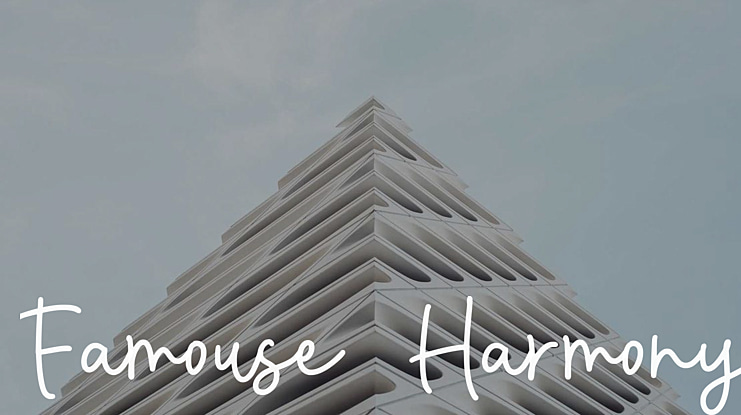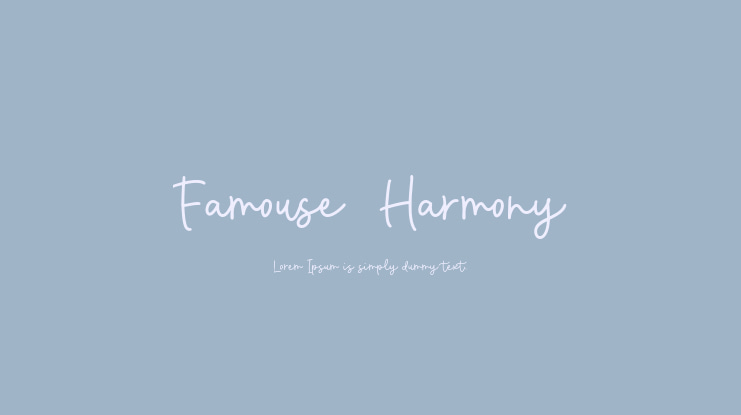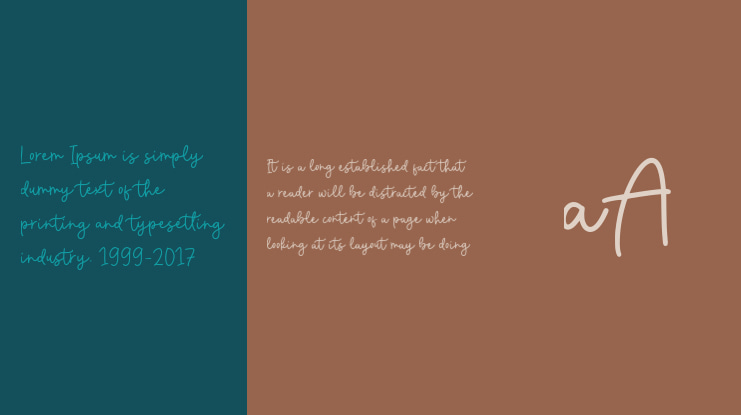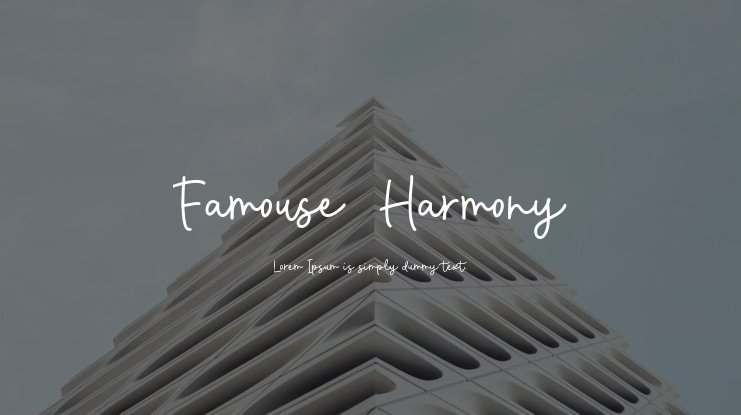
Famouse Harmony Font
Discover the Famous History, a Modern Monoline Handwritten font. Its smooth lines and elegant curves bring a touch of charm and grace to our product, creating an essence of timeless beauty. Every stroke of the pen has been meticulously crafted, resulting in an enchanting script that is both fluid and delicate.
This thoughtfully curated offering embodies a blend of sophistication and simplicity, making it suitable for a diverse array of occasions and purposes. Whether it's invitations, stationery, branding, or digital design, our monoline handwritten font effortlessly enhances any project, taking it to new heights of creativity.
Additionally, our font provides multilingual support, allowing you to express your ideas in different languages.